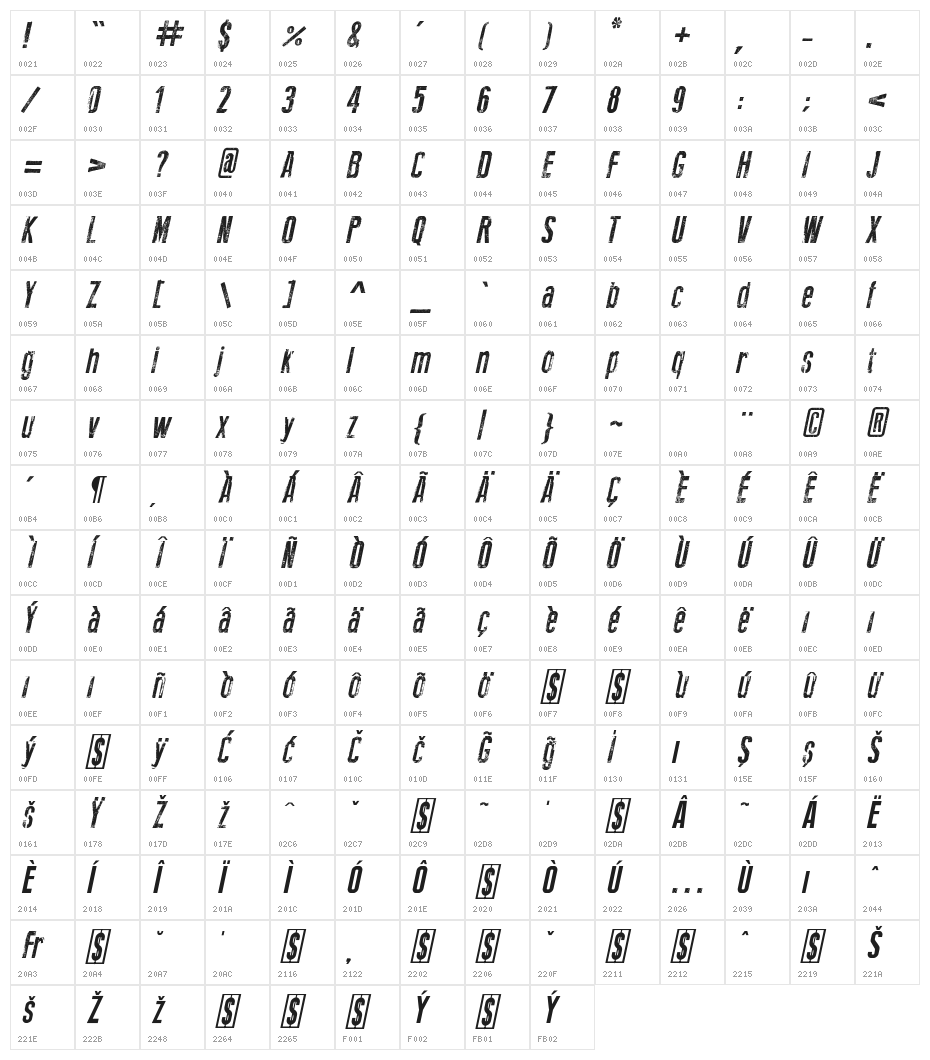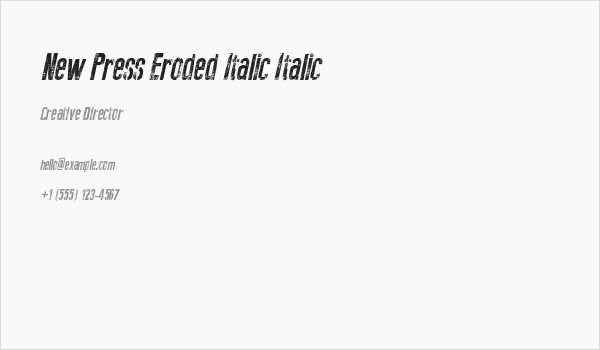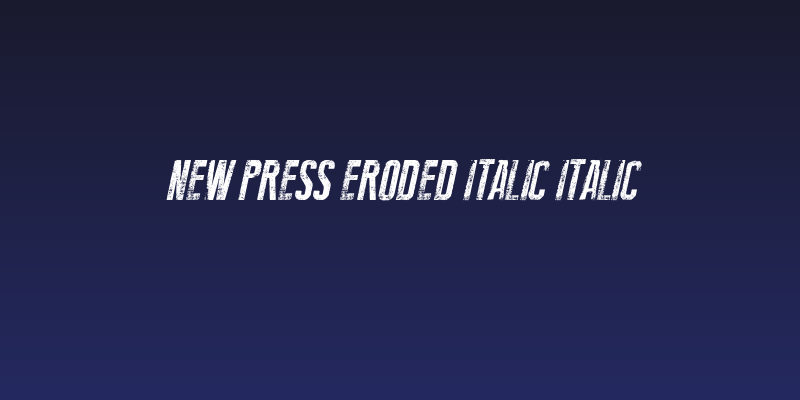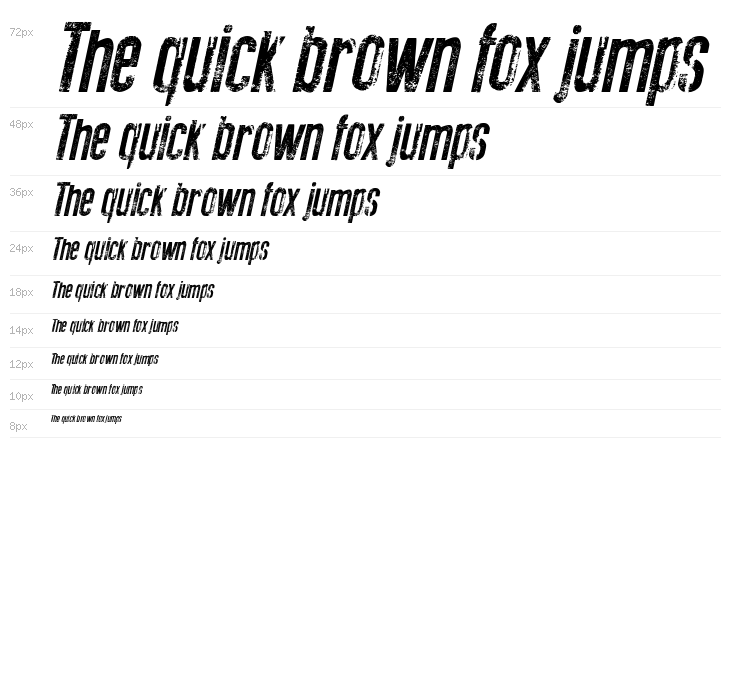
New Press Eroded Italic Italic Font
New Press Eroded Italic Italic Description
This font features a distressed, eroded style with a bold and italicized appearance. The characters are heavily textured, giving them a worn, vintage look that suggests age and ruggedness. The uppercase and lowercase letters maintain a consistent slant, enhancing the italic effect. Numbers and special characters follow the same eroded pattern, ensuring uniformity across all glyphs. The font's bold weight and condensed width make it stand out, while the high contrast in stroke thickness adds to its dynamic presence. This typeface is ideal for projects that require a gritty, industrial aesthetic.
| Overall Style | Vintage, Industrial |
| Proposed Projects | Ideal for posters, album covers, branding for edgy or vintage-themed products, and any design needing a rugged, industrial look. |